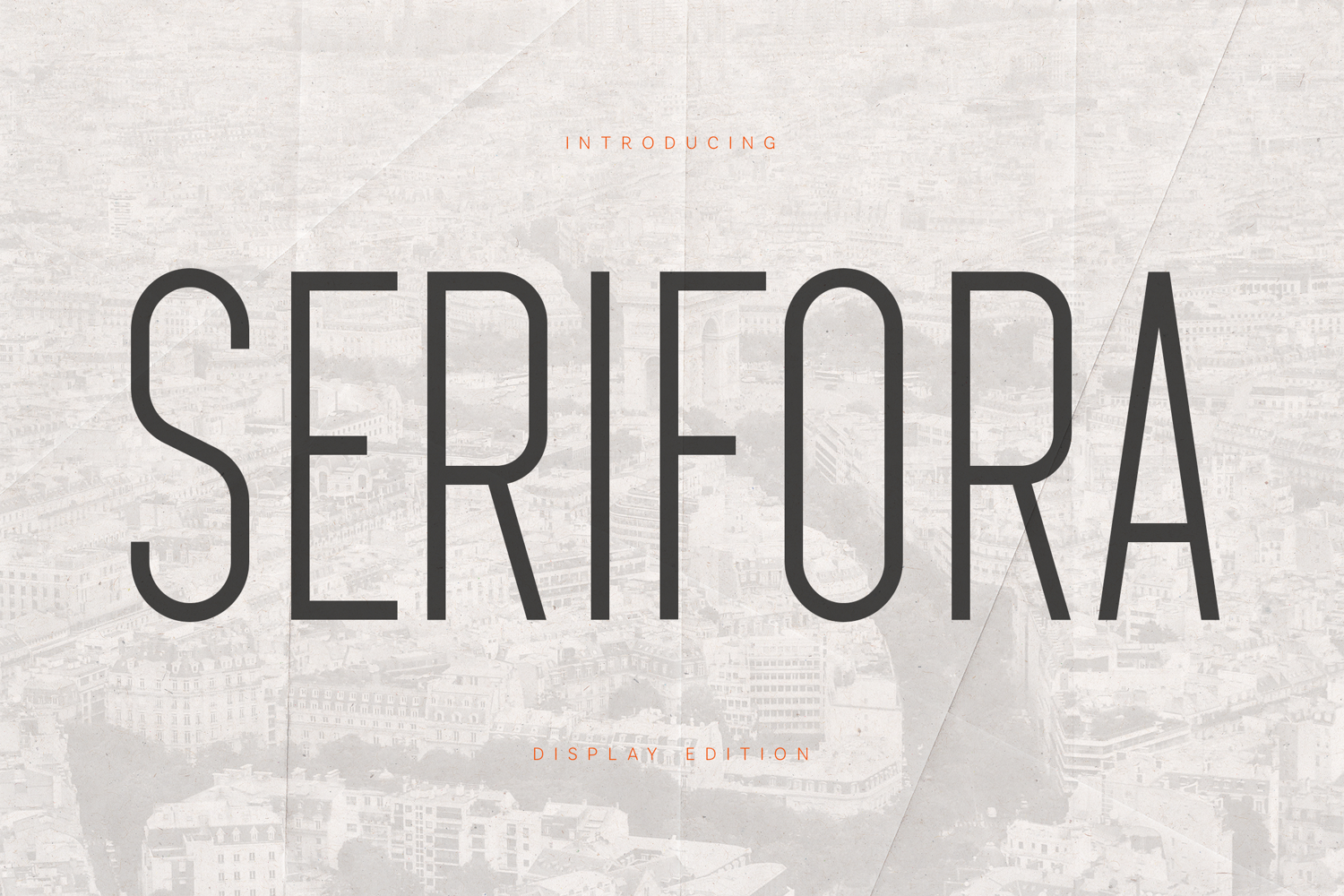
Serifora Modern Elegant Serif Typeface
Serifora is a modern elegant serif typeface designed with refined proportions and sophisticated letterforms. Its clean structure and stylish contrast create a timeless typographic aesthetic that works beautifully across branding, editorial design, and high-end visual identities.
The typeface blends classic serif elegance with contemporary minimalism, resulting in a versatile font that feels both modern and sophisticated. Serifora is carefully crafted to maintain excellent readability while delivering strong visual presence in headlines and display typography.
With its tall proportions and balanced shapes, Serifora is ideal for projects that require a luxurious, editorial, or fashion-inspired look.
The font includes uppercase and lowercase characters, numbers, punctuation, and extended multilingual support, making it suitable for international branding and publishing projects.
Perfect for• Branding and logos
• Editorial design
• Luxury branding
• Magazine headlines
• Fashion typography
• Packaging design
• Posters and advertising
• Social media graphics
Serifora brings modern elegance and timeless typography together in a clean and professional serif typeface.